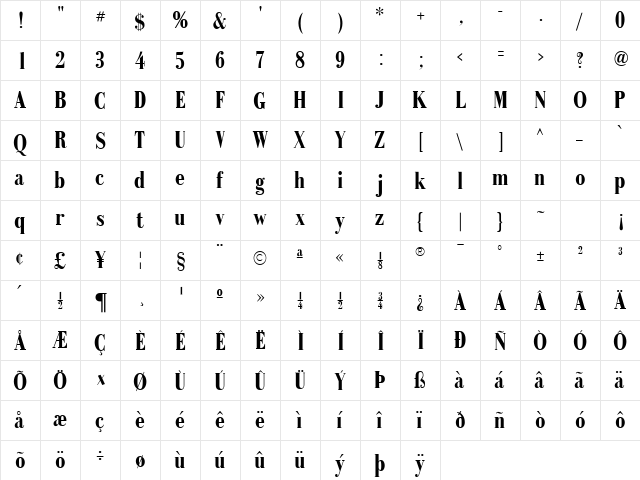
Recital SSi Bold
Design Context for Recital SSi Typeface
Recital SSi takes a measured approach to typography — its balanced proportions and neutral character make it a reliable workhorse for both digital and print work. The heavy weight commands attention and anchors typographic hierarchies.
Pro Tip: Use Recital SSi in both headline and body roles to test its range before committing to a single application.